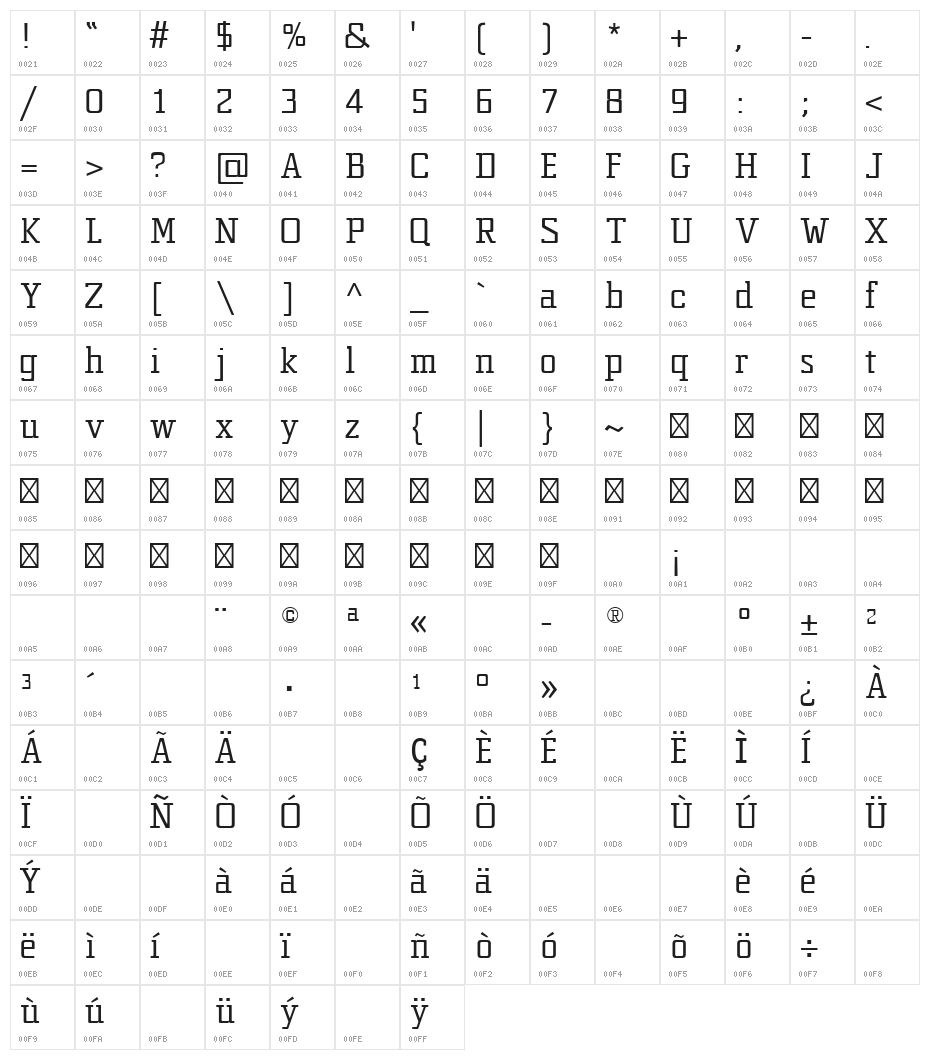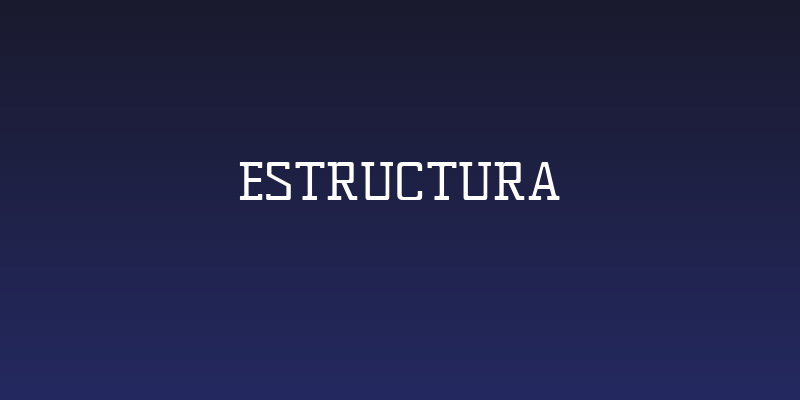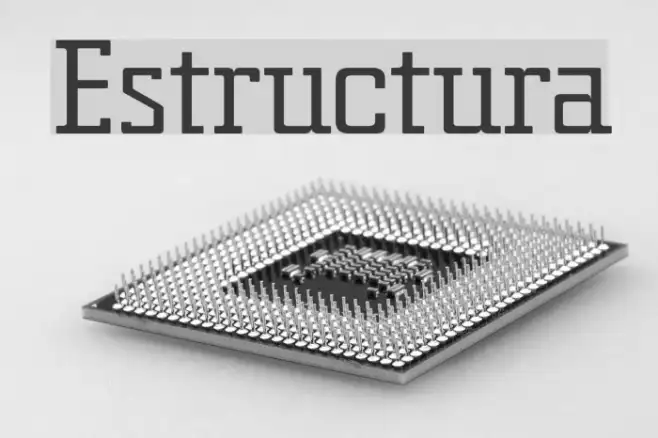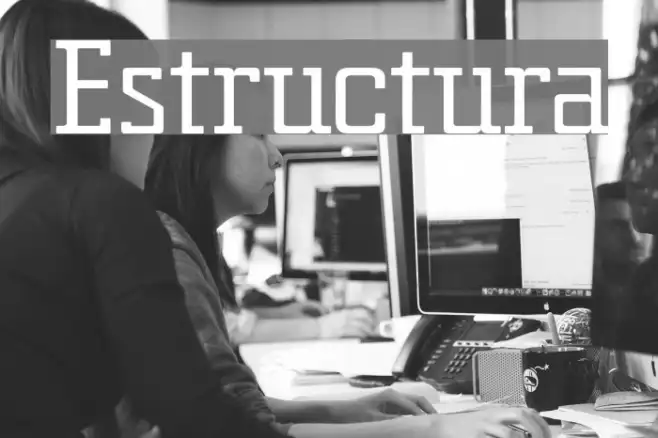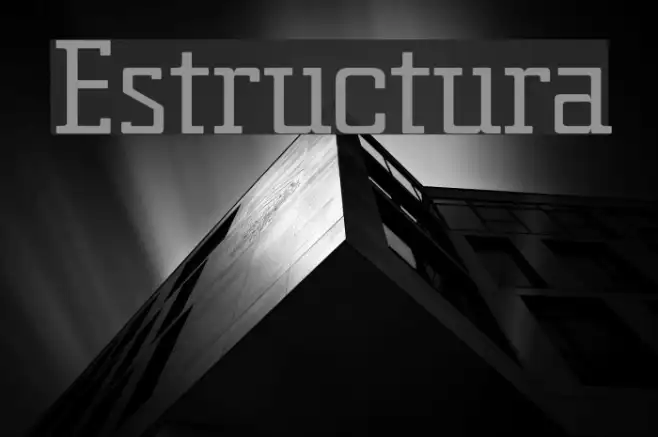
Estructura Font
Estructura Description
This font features a structured and geometric design, characterized by its clean lines and uniform stroke width. The uppercase letters are bold and commanding, while the lowercase letters maintain a consistent style with slightly rounded edges, giving a modern yet approachable feel. The numerals are clear and legible, matching the overall aesthetic of the alphabet. Special characters are well-integrated, maintaining the same geometric precision. This font's design is both functional and stylish, making it suitable for a variety of applications where clarity and impact are desired.
| Use Case | Headlines, Logos, Signage |
| Proposed Projects | Ideal for branding, signage, posters, and editorial design where a modern and impactful look is needed. |